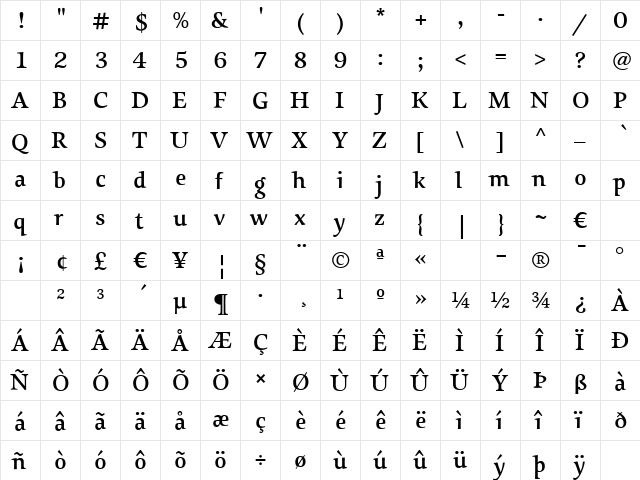
Sovereign-DemiBold Regular
Design Context for Sovereign-DemiBold Typeface
Sovereign-DemiBold offers clean, dependable letterforms without strong stylistic allegiance, making it a practical choice for designers who need flexibility. Its bold stroke weight gives it real presence on the page.